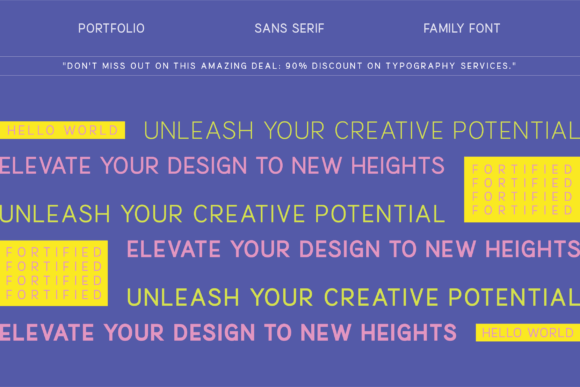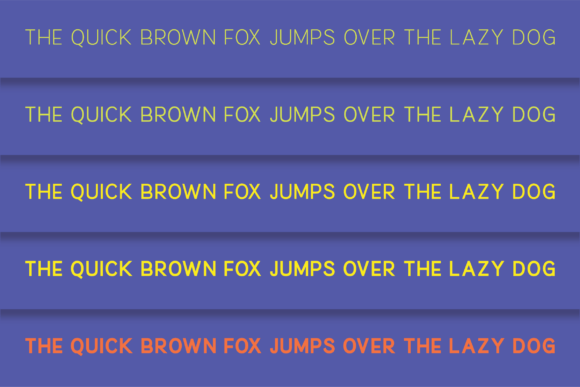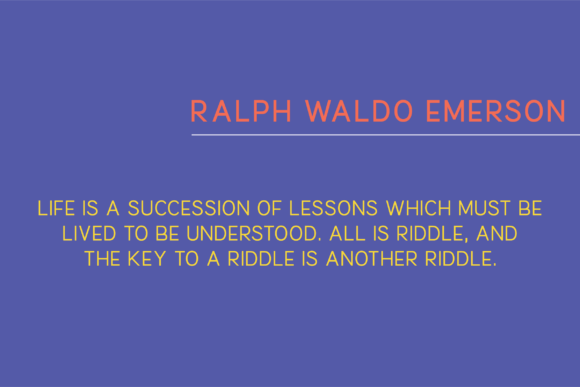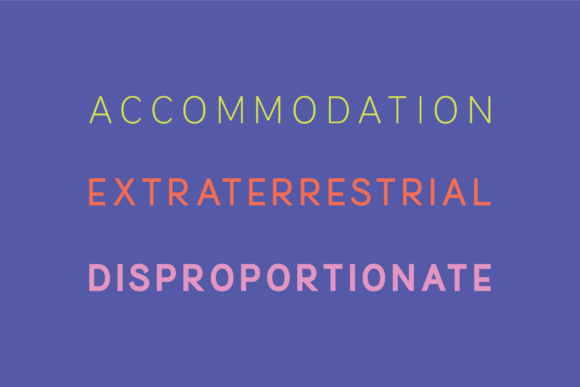
Introducing Fortified Font Family — A Masterpiece of Elegance and Minimalism
In the world of typography, a font family can make or break a design. It can elevate a project from ordinary to extraordinary, conveying the perfect tone and aesthetic. Meet Fortified Font, a meticulously crafted sans-serif font family that redefines modern design. With its 5 distinct weights, Fortified Font offers unparalleled versatility, seamlessly adapting to projects ranging from magazines and logos to film posters and beyond.
Precision-Crafted for Perfection
Designed with precision and an eye for detail, Fortified Font strikes the perfect balance between sophistication and simplicity. Each letterform has been carefully crafted to exude a sense of timeless charm and contemporary luxury. The result is a font family that is both elegant and understated, making it perfect for designers and crafters looking to add a touch of sophistication to their work.
One of the standout features of Fortified Font is its versatility. With 5 distinct weights, ranging from light to bold, this font family can be used for a wide range of projects. Whether you’re designing a magazine, logo, or film poster, Fortified Font adapts seamlessly, providing the perfect tone and aesthetic for your creation. The font family is also highly legible, making it perfect for body text, headlines, and titles.
Elegance and Minimalism Combined
Fortified Font is a masterclass in elegance and minimalism. The clean lines, precise curves, and carefully crafted letterforms come together to create a font family that is both beautiful and functional. The minimalist approach ensures that the font doesn’t overpower the design, allowing the content to take center stage. At the same time, the elegance of the font family adds a touch of sophistication, elevating the design to new heights.
Unlock a New Level of Creativity
With Fortified Font, designers and crafters can unlock a new level of creativity. The font family’s versatility and elegance make it perfect for a wide range of projects, from editorial design to branding and advertising. Whether you’re a seasoned designer or just starting out, Fortified Font provides the perfect foundation for creating stunning designs that capture the imagination.
Key Features of Fortified Font
- 5 distinct weights, ranging from light to bold
- Highly legible and versatile
- Clean lines, precise curves, and carefully crafted letterforms
- Perfect for magazines, logos, film posters, and more
- Elegant and minimalist design
- Timeless charm and contemporary luxury
Transform Your Designs with Fortified Font
Ready to take your designs to the next level? Look no further than Fortified Font. With its unparalleled versatility, elegance, and minimalism, this font family is the perfect addition to any designer’s toolkit. Whether you’re looking to create a stunning magazine spread, a bold logo, or a captivating film poster, Fortified Font provides the perfect foundation for creating designs that capture the imagination.
Get Ready to Experience the Future of Typography
In conclusion, Fortified Font is a game-changer in the world of typography. Its precision-crafted design, versatility, and elegance make it the perfect choice for designers and crafters looking to create stunning designs. With Fortified Font, you can unlock a new level of creativity, transforming your designs and taking them to new heights. So why wait? Experience the future of typography today with Fortified Font.